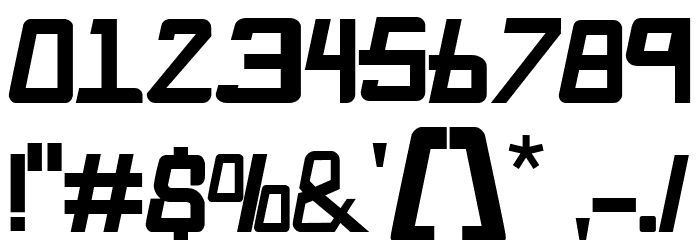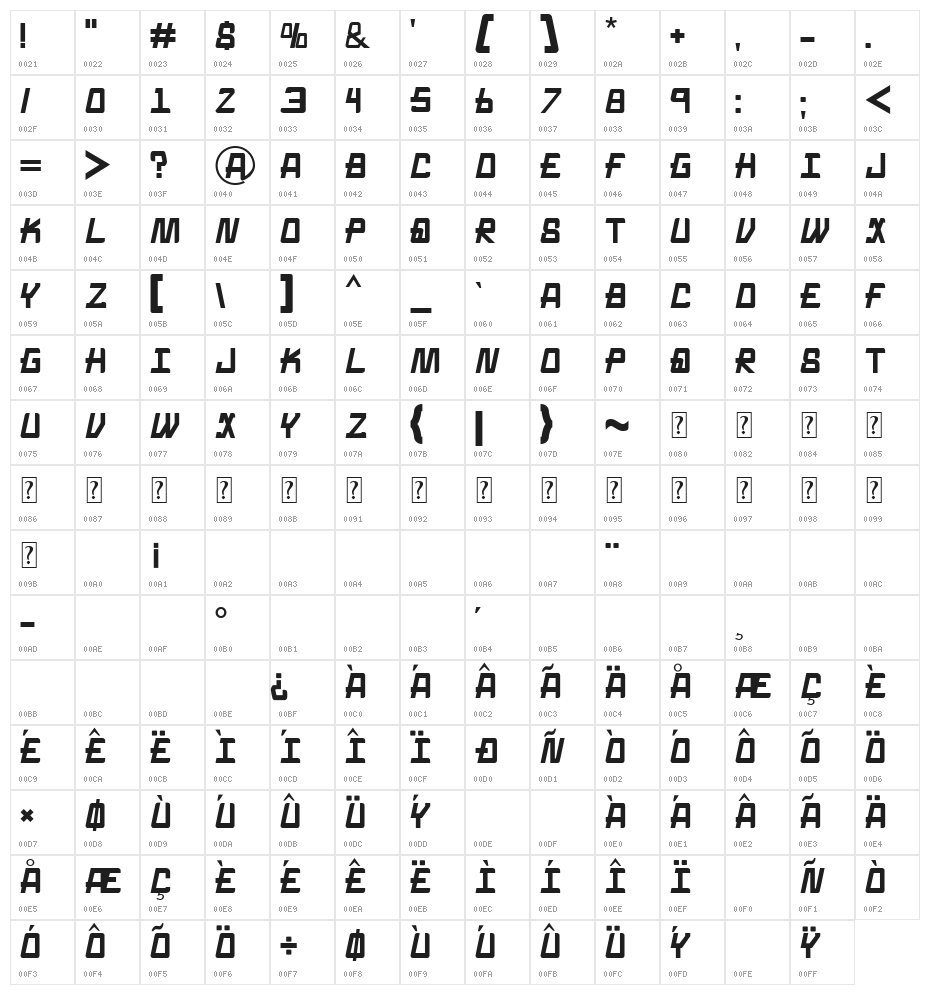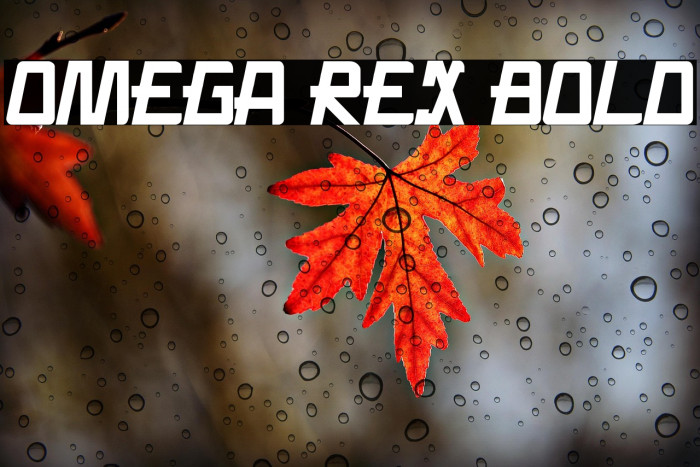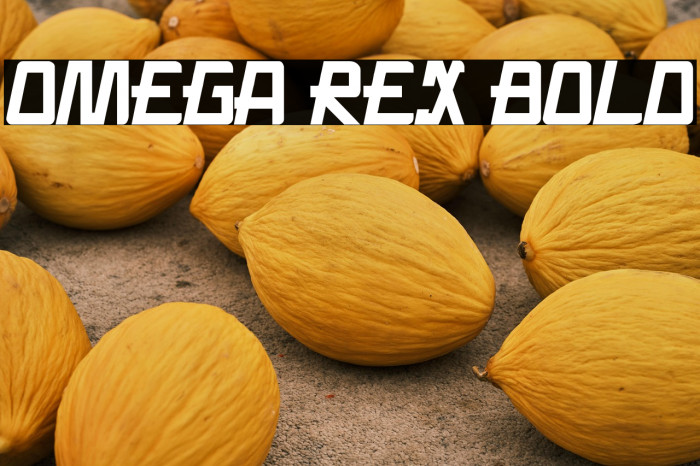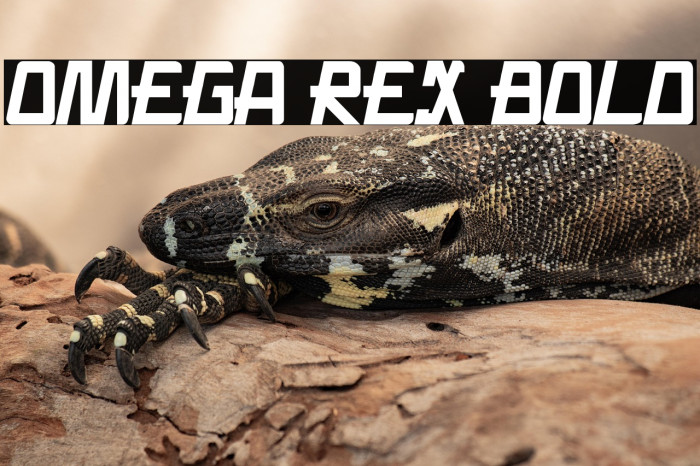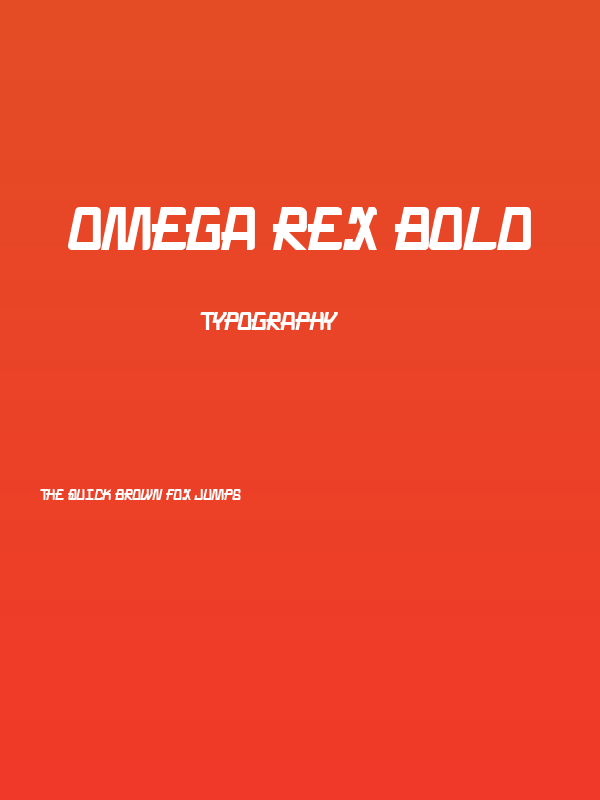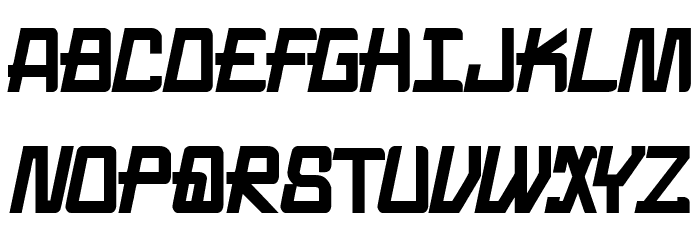
Omega Rex Bold Font
Omega Rex Bold Description
This font features a bold and dynamic style with a futuristic and angular design. The characters are constructed with sharp edges and a slightly slanted orientation, giving them a sense of movement and energy. The uppercase and lowercase letters maintain a consistent geometric form, while the numerals and special characters complement the overall aesthetic. The font's bold weight and unique structure make it stand out, ideal for projects that require a strong visual impact.
| Proposed Projects | Ideal for sci-fi themed projects, video game titles, posters, and branding that requires a modern and edgy look. |